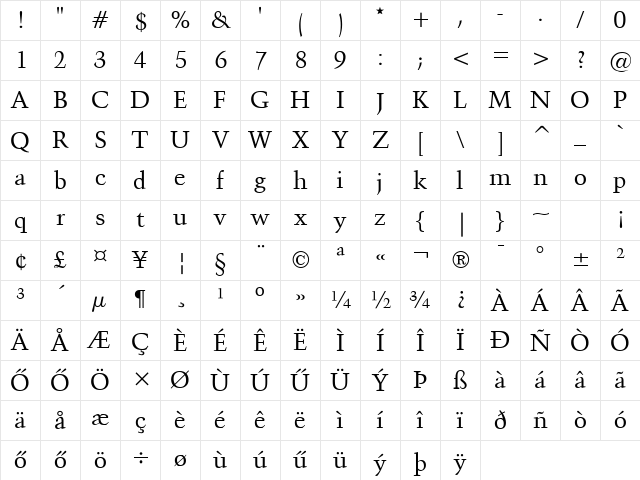
Kuenst480 HU Normal
Design Context for Kuenst480 HU
Kuenst480 HU is a composed and adaptable typeface that performs quietly and consistently across a wide range of design contexts.